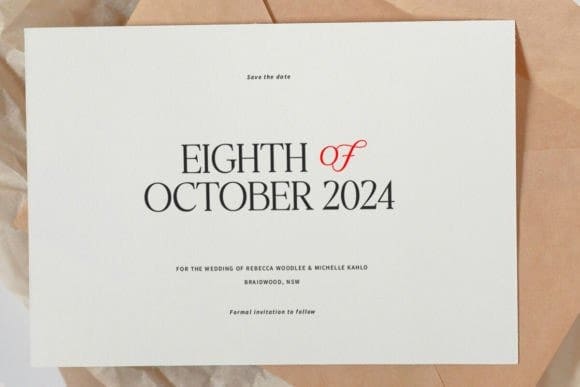
Cerpa Display Font
Cerpa Display Font is a modern serif font combined with a special alternative to luxury calligraphy so you can be more creative with attractive layouts. CerpaDisplay is perfect for poster designs, book covers, merchandise, fashion campaigns, newsletters, branding, advertising, magazines, greeting cards, album covers, and quote designs, and much more.